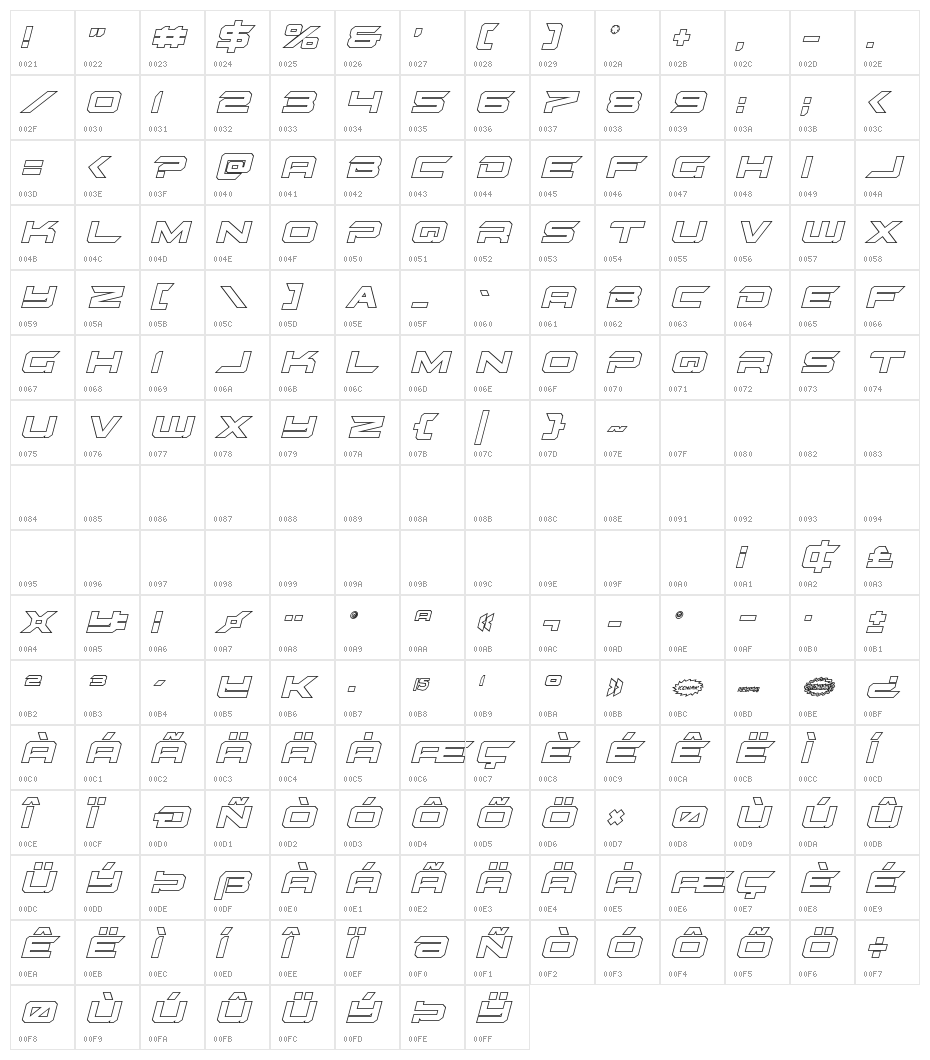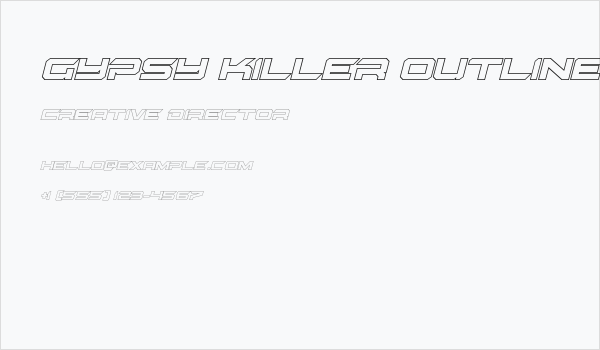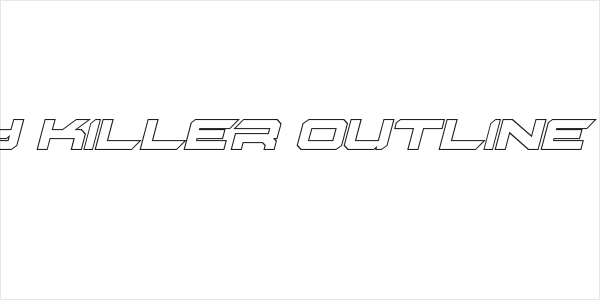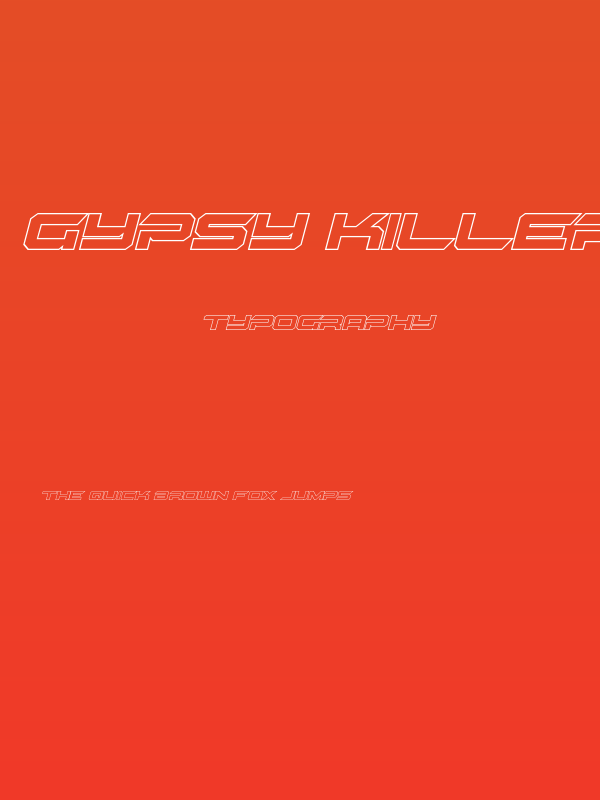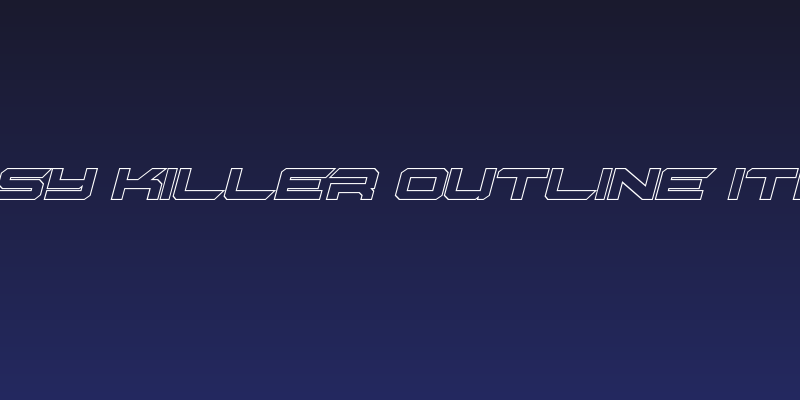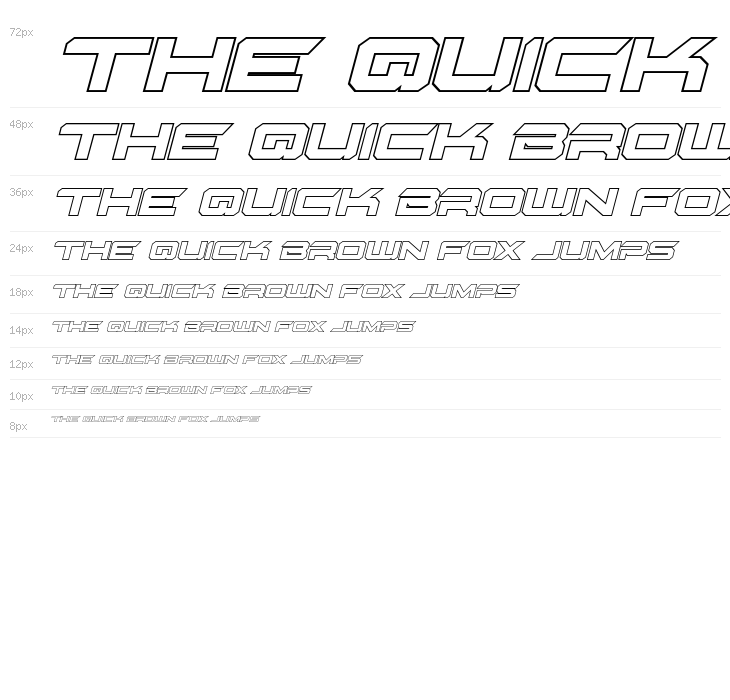
Gypsy Killer Outline Italic Font
Gypsy Killer Outline Italic Description
This font features a bold, geometric outline style with an italic slant, giving it a dynamic and futuristic appearance. The characters are constructed with sharp angles and clean lines, creating a sense of movement and energy. The outline design adds a layer of depth, making each letter stand out distinctly. The uppercase and lowercase letters maintain a consistent style, while the numerals and special characters complement the overall aesthetic. This font is ideal for projects that require a modern, edgy look, such as tech branding, sports team logos, or sci-fi themed designs.
Overall StyleFuturistic, Dynamic
Proposed ProjectsIdeal for tech branding, sports logos, sci-fi themes, and dynamic posters.